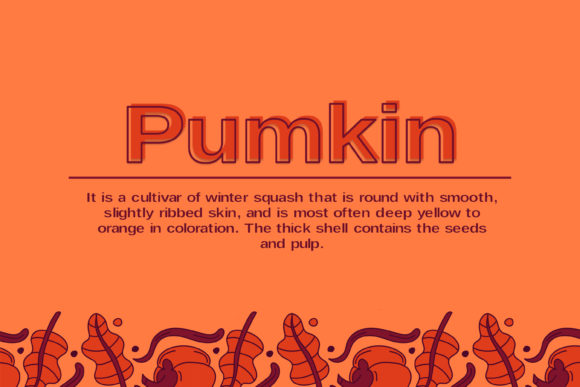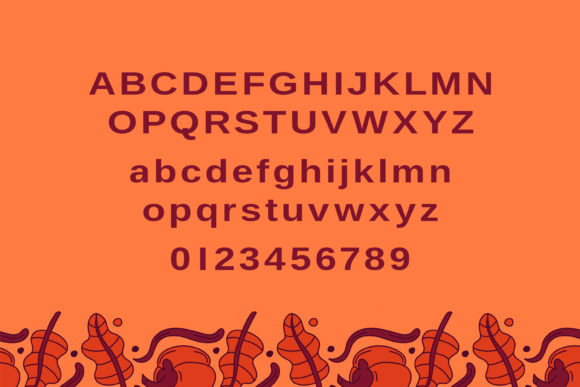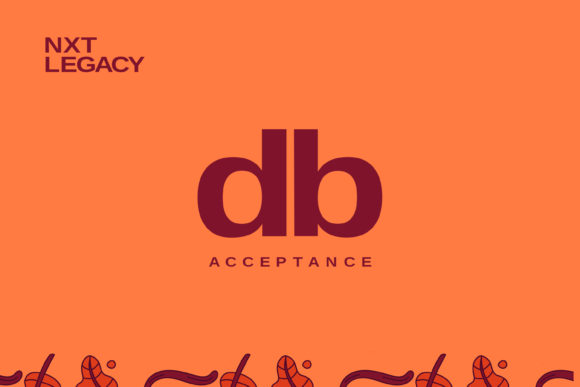
Introduction to Orborn Font
Orborn is a modern and minimal sans serif font, perfect for projects that need a unique and clean look.
Its sleek characters are guaranteed to make each of your creations stand out and look exquisite .
Key Features of Orborn Font